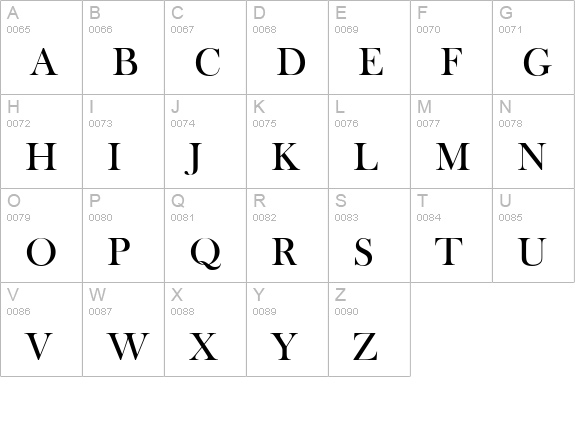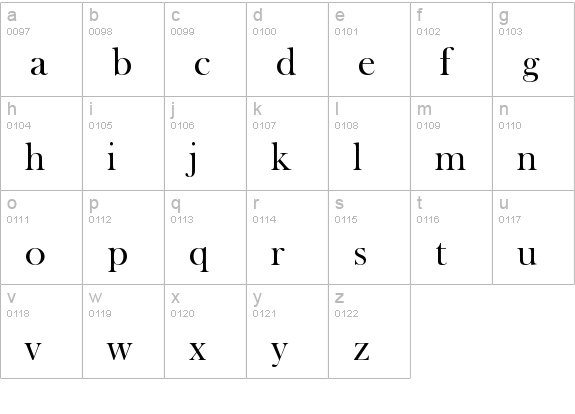
Baskerville-Old-Face-Regular is the standard, neutral variant in the Baskerville typeface family \xE2\x80\x94 well suited to general body text, paragraphs, and standard typographic work.
Baskerville Old Face Regular font is a timeless classic that exudes elegance and sophistication. With its delicate serifs and graceful curves, this typeface is perfect for adding a touch of refinement to any design project. The clean lines and balanced proportions of Baskerville Old Face Regular make it a versatile choice for both print and digital applications. What's even better is that Baskerville Old Face Regular font is available for free download at FontsMarket.com. Now you can easily access this exquisite font and elevate your designs with its timeless beauty. Whether you're working on a branding project, editorial layout, or website design, Baskerville Old Face Regular font will surely make a lasting impression. Download it today and experience the elegance and sophistication this font has to offer.